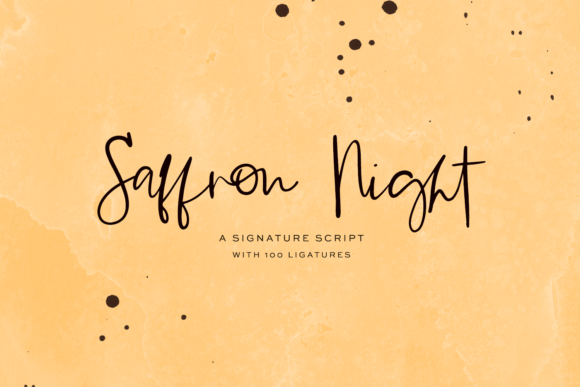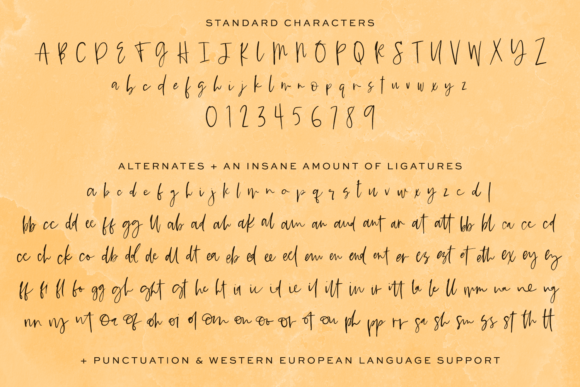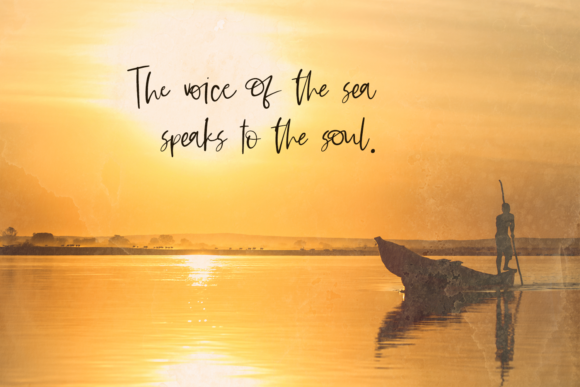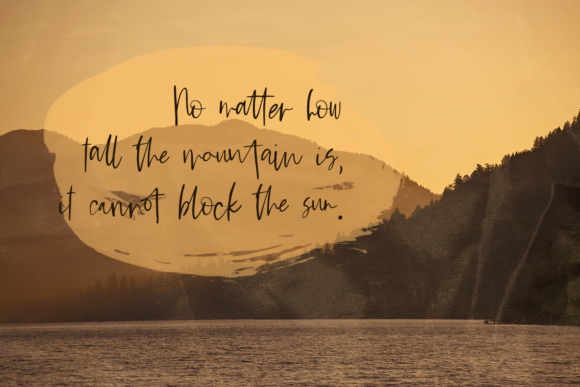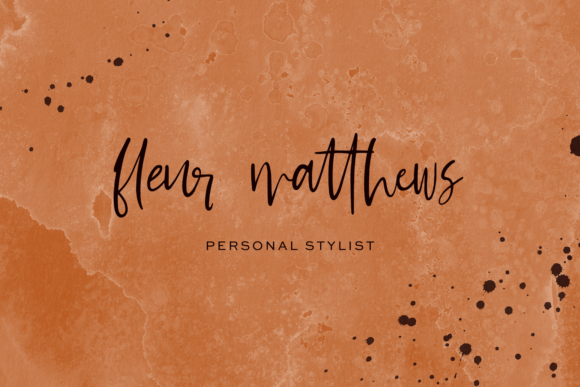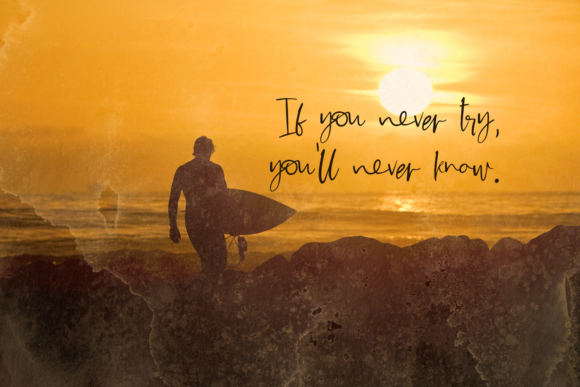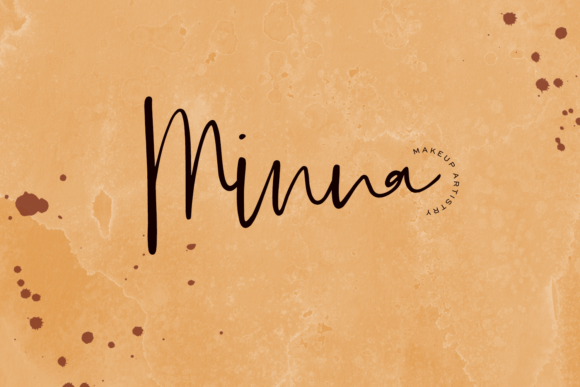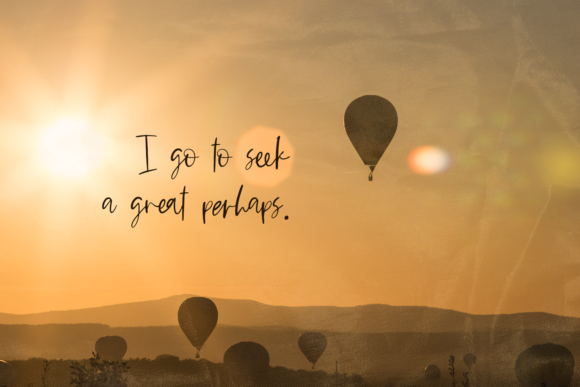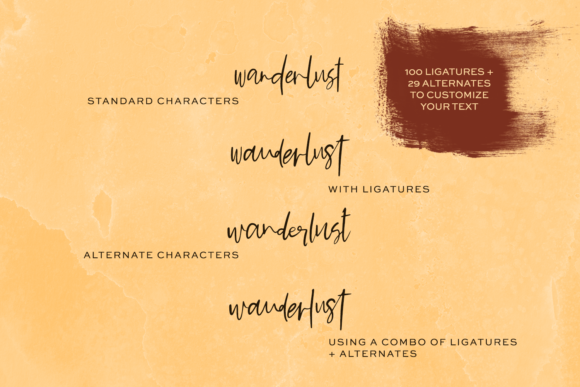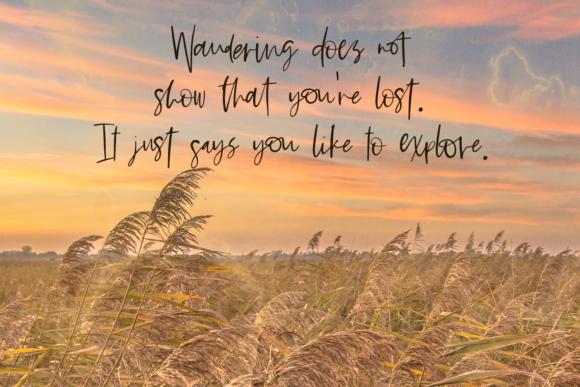
Saffron Night Font
About Saffron Night Font
Saffron Night is a handwritten font that mimics the look & feel of random scrawly notes and journal pages. Fall in love with its abstract appearance!